Font Rosamuda Browline is a sophisticated and captivating typeface that effortlessly combines the elements of brush textured font and hand lettering style. With its refined design and timeless appeal, this font exudes class and elegance in every stroke. The carefully crafted brush textures add a touch of authenticity and depth to the letterforms, creating a visually stunning effect. Whether used for logo designs, branding materials, or stylish invitations, Rosamuda Browline is sure to make a lasting impression. Its versatility and distinctive charm make it a perfect choice for those seeking a font that embodies both professionalism and artistic flair.
Vemoly Display is a minimalist sans that is perfect for your upcoming aesthetic project. This font provides a combination of basic sans serif and loopy style. You can make fun by mixing and matching the upper and lowercase to get a unique, simple, and charming typographic design. Vemoly Display is a perfect choice for logo, social media, branding, poster, flyer, magazine, websites, fashion, mobile apps, decoration, wedding, and many more!
Badrock Vintage Typeface is a vintage font with 3 Unique Styles character options including Clean, Older and Stamp. This font is perfect for people looking for vintage aesthetic or logo-type. Suitable for any graphic designs such as branding materials, t-shirt, print, business cards, logo, poster, t-shirt, photography, quotes etc.
Danson Sans serif Font Family
DANSON is a sans serif type family of 10 fonts that very suitable to be placed on your project such as for printing, advertising, campaigns, posters, book titles, and so on.
Twisted Font
Twisted is a retro groovy font, inspired by retro bold typography. This font is perfect for a design that makes it more attractive and playful. Groovy Beach is suitable for book covers, posters, packaging, merchandise, logotype, and much more.
Gelato Spaces Sans Serif Font
The Gelato Spaces Font is a Modern Serif Font that can be used as an Aesthetic Sans Serif Font, Classy Logo Font, Minimal Branding Font, Elegant Business Font, Luxury Brand Font, Unique Display Font, Modern Branding Font, Elegant Canva Font, Minimal Packaging Font, Handcrafted Editorial Font, Premium Logo Font Perfectly suitable for numerous use such as quotations, banners, logos, product packaging, titles, headers, Business cards, menu lists, and invitation cards!
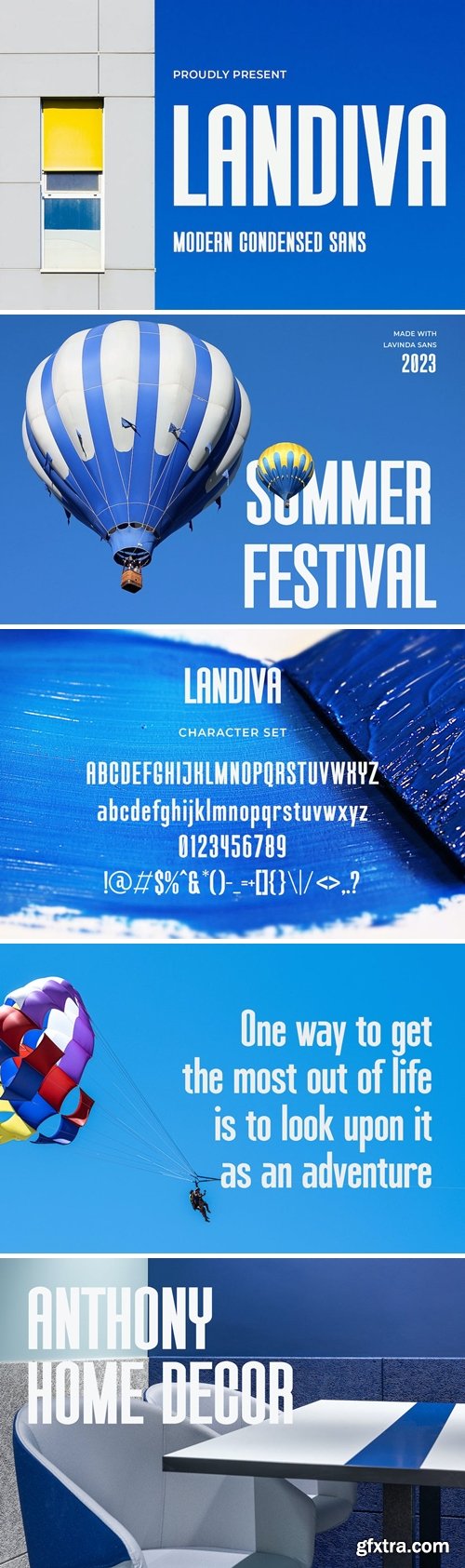
Landiva - Modern Condensed Sans Font
Introducing our new Landiva, modern sans serif font with elegant style this is perfect for branding, logos, invitation, magazines, product packaging and more.
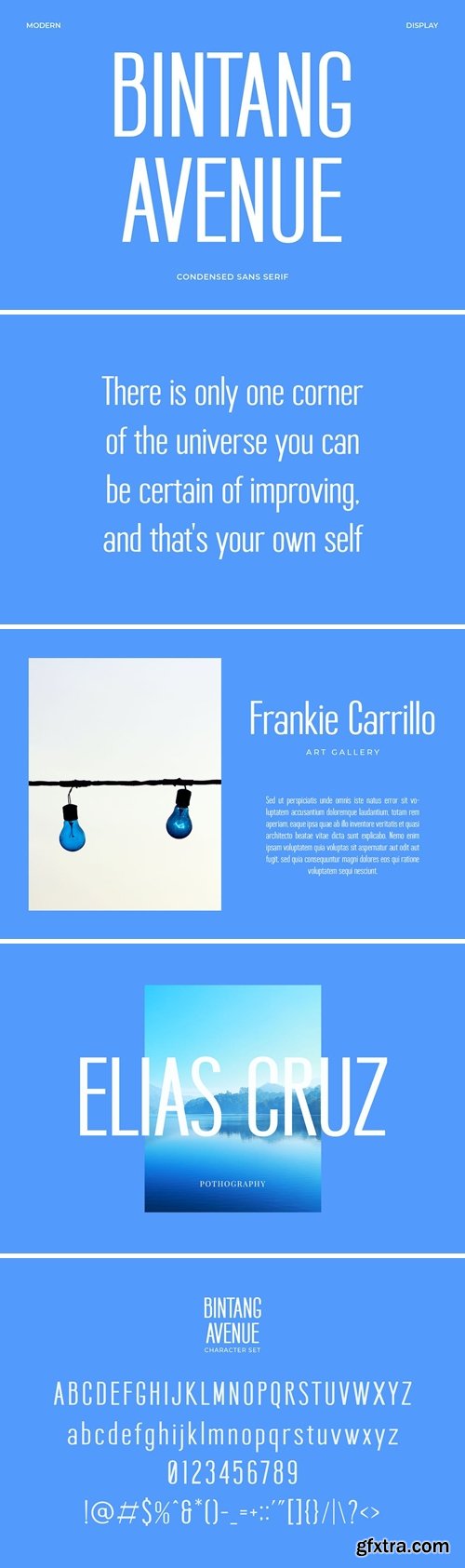
Bintang Avenue - Modern Sans Serif Font
Introducing our new Bintang Avenue, modern sans serif font with elegant style this is perfect for branding, logos, invitation, magazines, product packaging and more.
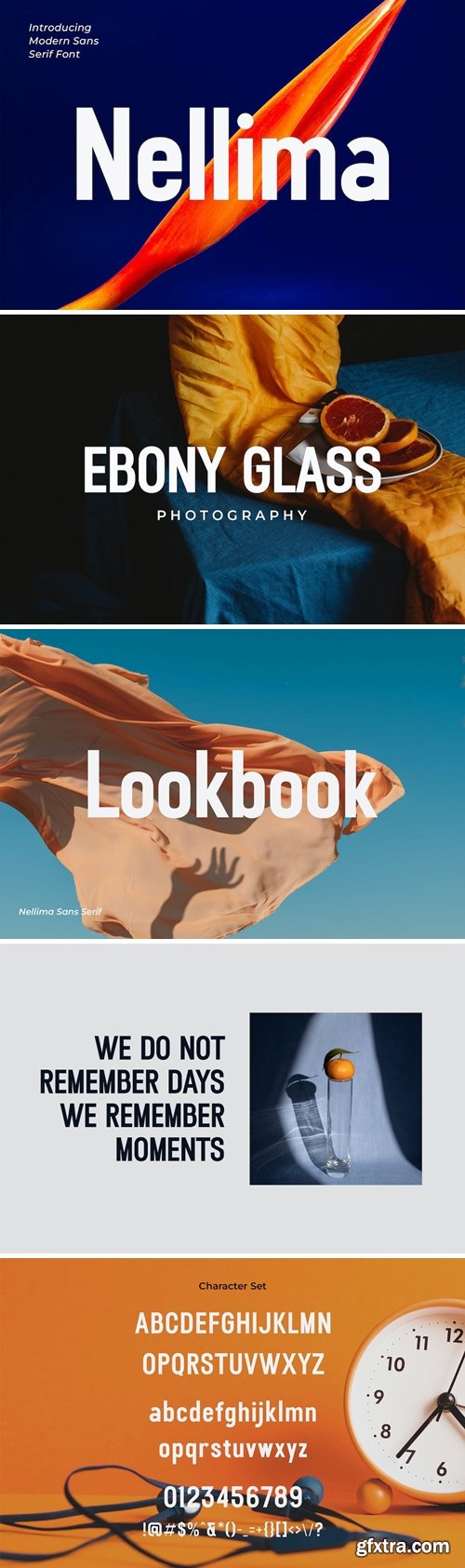
Nellima - Modern Sans Serif Font
Introducing our new Nellima, modern sans serif font with elegant style this is perfect for branding, logos, invitation, magazines, product packaging and more.
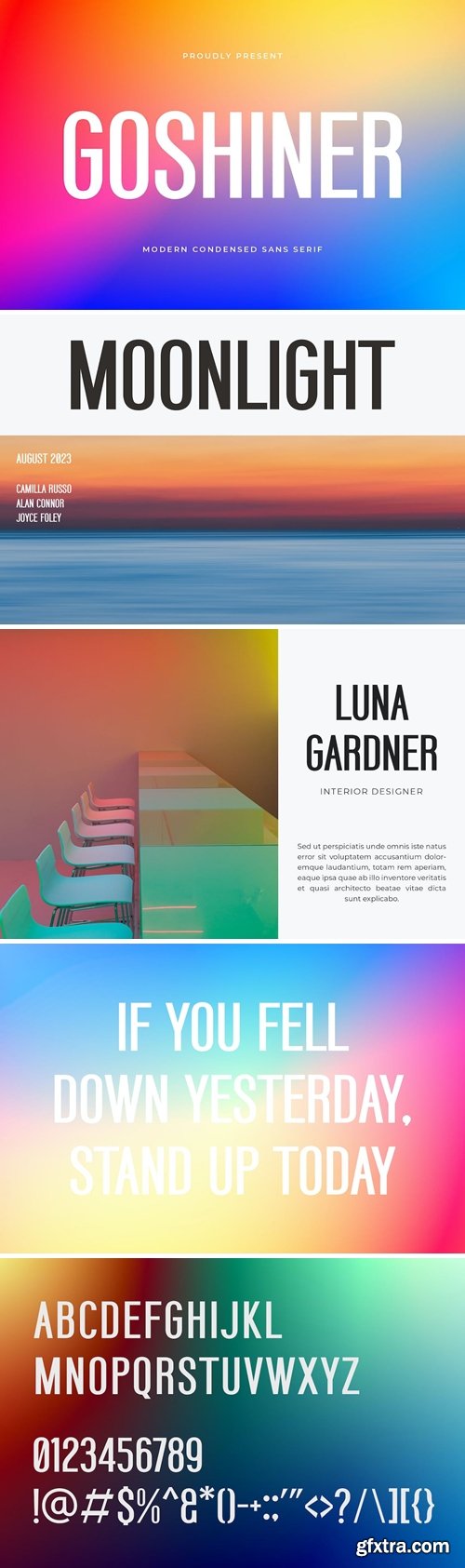
Goshiner - Modern Sans Serif Font
Introducing our new Goshiner, modern sans serif font with elegant style this is perfect for branding, logos, invitation, magazines, product packaging and more.
Miniland - A Bold Sans Serif Font
Introducing our new Miniland, modern sans serif font with elegant style this is perfect for branding, logos, invitation, magazines, product packaging and more.
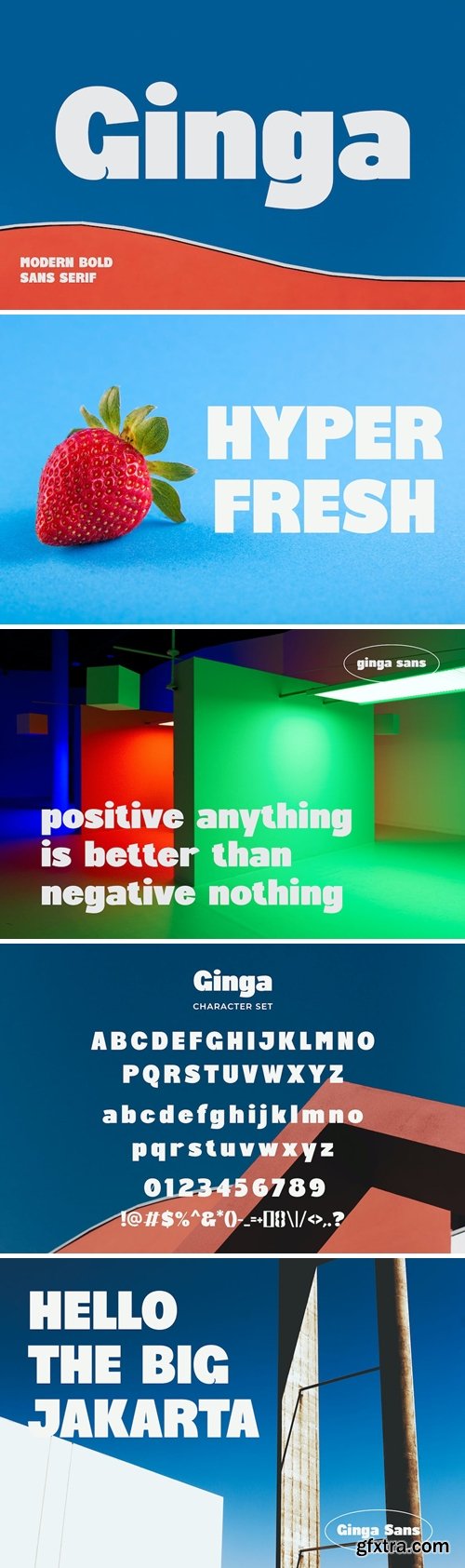
Ginga - Modern Bold Sans Serif Font
Introducing our new Ginga, modern sans serif font with elegant style this is perfect for branding, logos, invitation, magazines, product packaging and more.
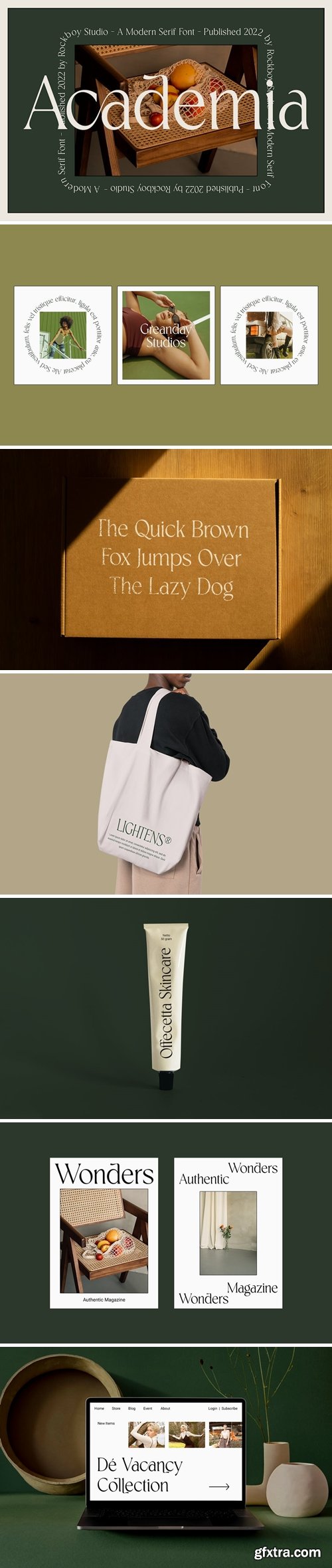
Academia - Modern Stylish Font
Academia is an elegant, thin lettered and distinct serif font. Suitable to a wide variety of designs due to its neat and clean style, this font has the potential to become your favorite go-to font, no matter the occasion!
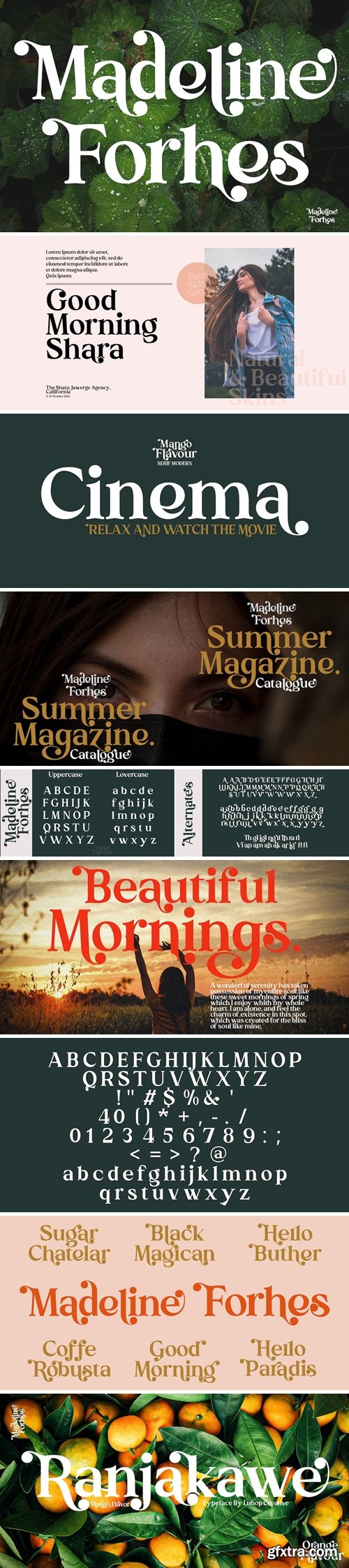
Madeline Forhes Font
Madeline Forhes is a stylish and modern serif font that’s perfect for bringing a touch of sophistication to your designs. Its clean lines and contemporary letterforms create a timeless yet fresh look that’s perfect for editorial design, branding, and any project that requires a touch of elegance.
Besthia Display Font Duo
Besthia Display is a stylish vintage font vibe with a touch of modernity. It looks amazing at display sizes and is easily readable in text size. Besthia Display comes with access to your OpenType features, large selection of stylistic alternate glyphs and ligatures. To use stylistic Alternates and ligatures, there is no need to use software that supports opentype, because we have made them separately so it is very easy to use.
Shebae Fun Serif Font
Shebae is a fun, charming and quirky serif font. It can easily be matched to any design project, so add it to your creative ideas and notice how it makes them stand out!
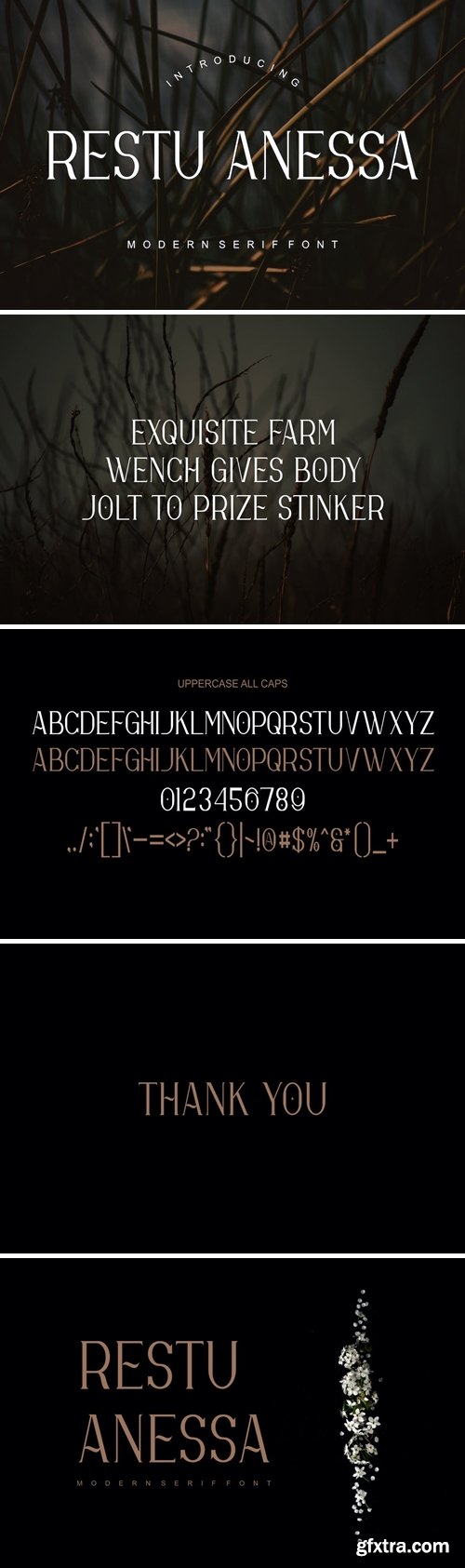
Restu Anessa Fonts Font
ntroducing our new product Roghan Restu Anessa Fonts modern fonts. Roghan Adventure Fonts modern font is a bold and authentic display font. The font is suitable for any branding project like.